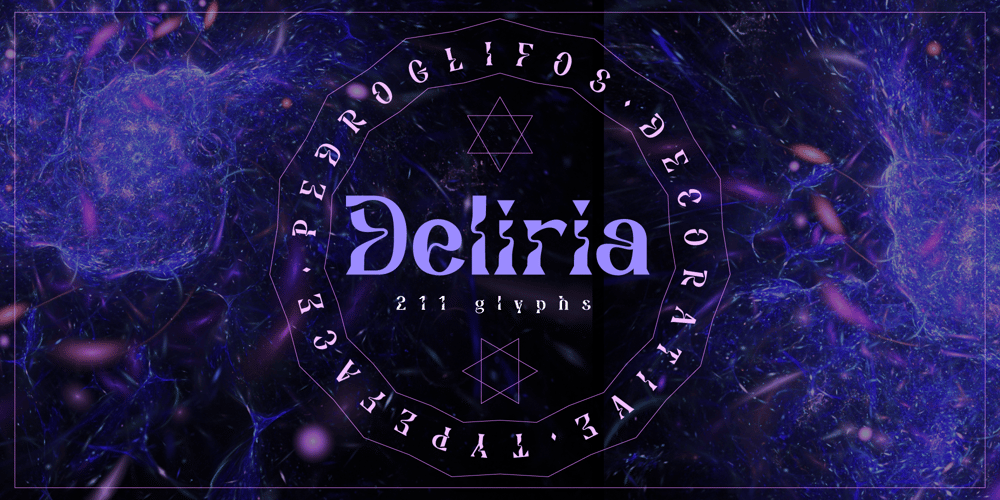
Deliria Font Family was designed by Pedro Medina-Leandry and published by Pedroglifos. Deliria contains 1 styles and family package options. Deliria is a decorative serif typeface that evokes a trippy feel from its wave-like body. The perfect balance between the flowing motion, and a fixed structure allows it to maintain readability while providing a unique aesthetic to your project. A great candidate for logos, single names, book titles and general decorative display. Combines well with simple sans or sharp serif fonts.